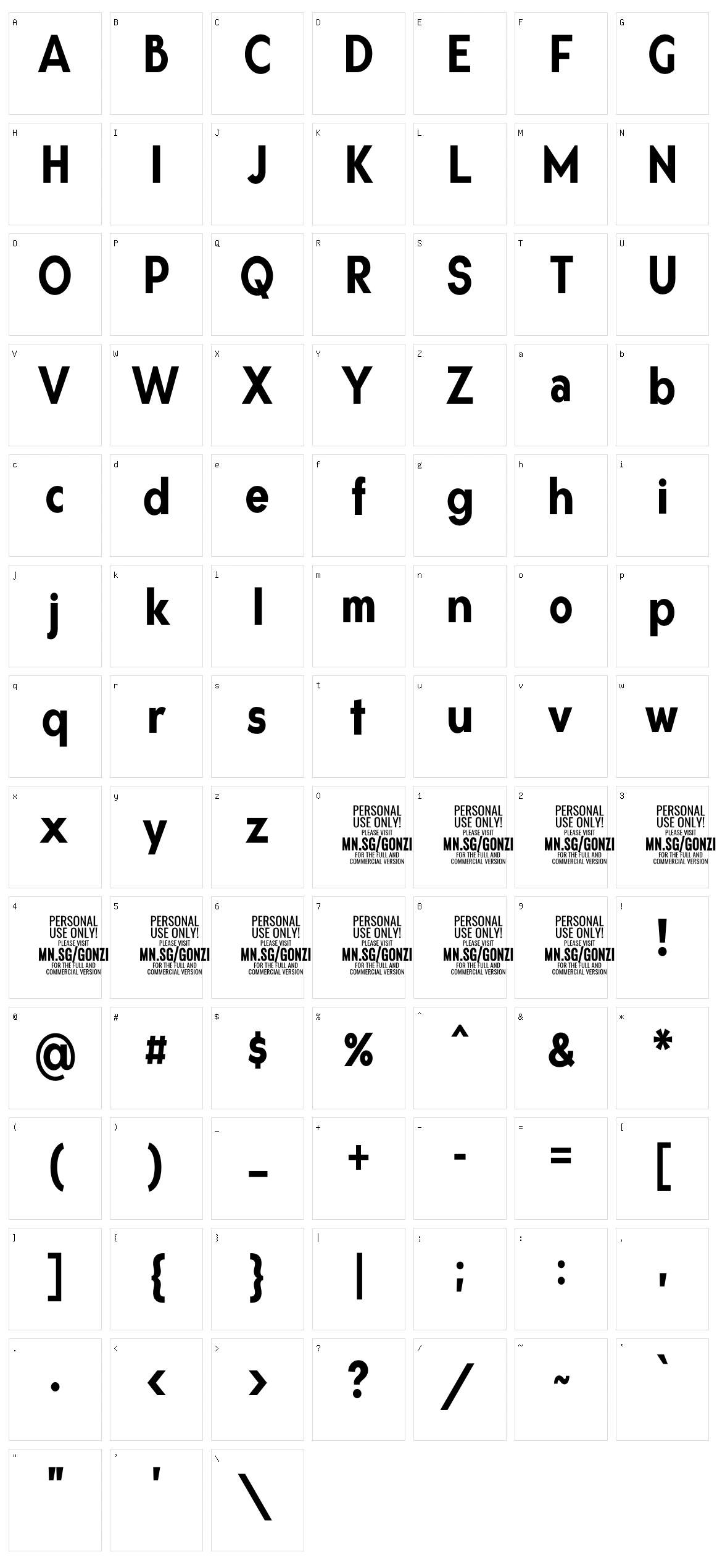
Gonzi is a geometric sans-serif typeface in 30 styles.
Its circular lowercase letters and large, expressive capitals combine to create a modern, clean typesetting with a distinct personality; all the while keeping accessible and legible.
Gonzi consists of five weights, each one as narrow, medium and wide:
Thin, Light, Regular, Bold, Black
Condensed, Medium, Extended
Each one of font styles is also provided as Italic, totalling 30 high-quality styles.
The font is built with advanced OpenType functionality and has a guaranteed top-notch quality, containing stylistic and contextual alternates, ligatures and more features; all to give you full control and customizability.
It has extensive lingual support, covering all Latin-based languages, from North Europe to South Africa, from America to South-East Asia.
It contains all characters and symbols you'll ever need, including all punctuation and numbers.